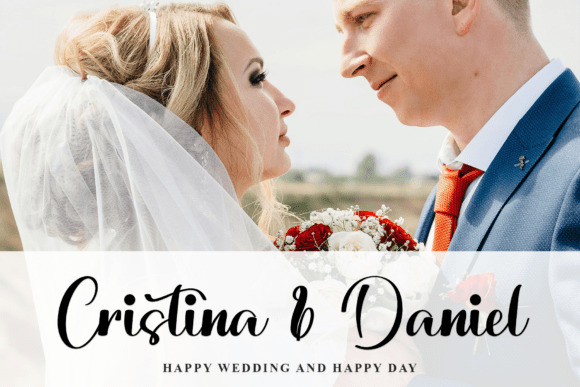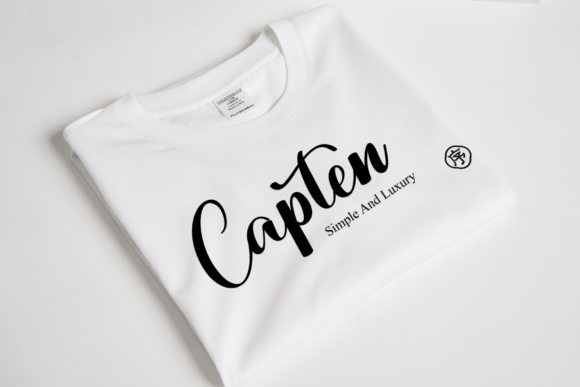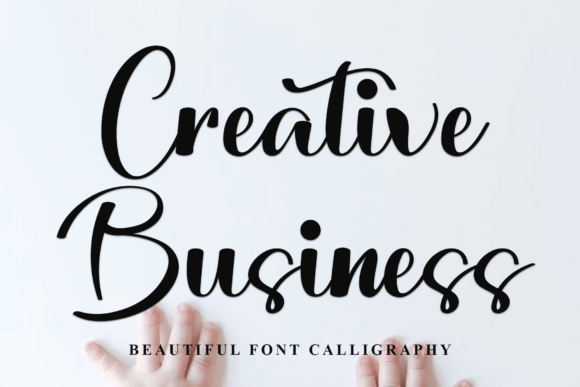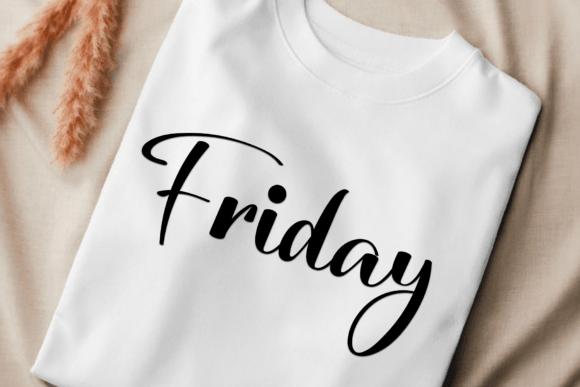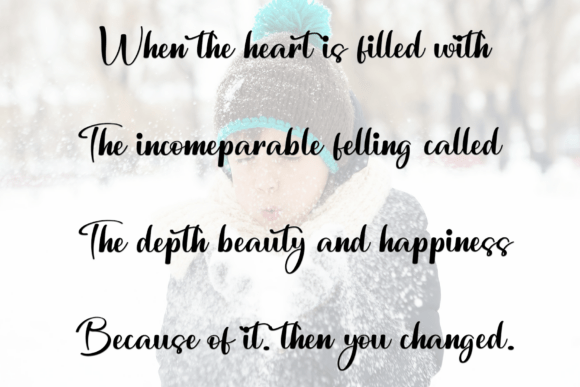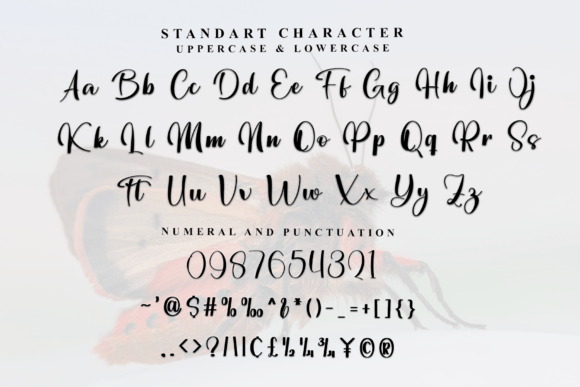
Get Ready to Celebrate with Birthday Antaresia Font
It’s that time of the year when you’re brainstorming ideas for your friend’s birthday party, and you can’t wait to create an eye-catching invitation that sets the tone for an unforgettable celebration. You fire up your design software, and suddenly, the perfect font pops into your mind – Birthday Antaresia Font. This charming font is specifically designed to capture the essence of warmth and friendliness, making it perfect for personal projects, social media graphics, and, of course, birthday invitations.
The Birthday Antaresia Font’s hand-drawn aesthetic adds a unique touch to any design, making it a valuable addition to your creative toolkit. Its round, playful strokes create a relaxed and approachable feel, ensuring that your designs exude a sense of joy and celebration. With its standard PUA Encoded glyphs, this font is easily accessible in various application engines, making it a convenient choice for designers of all levels.
Birthday Antaresia Font Key Features
- Font Family: Birthday Antaresia
- Unique Characteristics: Hand-drawn design, cursive script style, perfect for birthday invitations, greeting cards, and other celebratory materials
Birthday Antaresia Font Review
I recently had the chance to work with the Birthday Antaresia Font, and I must say it’s a unique addition to any project. Here are my honest thoughts on what works well and what doesn’t.
- The font’s elegant and whimsical feel makes it perfect for designing birthday invitations, party decorations, or any celebration-related materials.
- The variety of font styles, from cursive to script, allows for flexibility in choosing the right aesthetic for different projects.
- The font is well-suited for digital use, including web design, social media graphics, and presentations.
- The font may be too ornate for projects requiring a more minimalist approach, as its intricate details can be overwhelming.
Overall, the Birthday Antaresia Font is a great choice for projects that require a touch of elegance and whimsy. While it may have some limitations, its versatility and aesthetic appeal make it a solid addition to any designer’s toolkit.
Use the Birthday Antaresia font to add a touch of elegance and sophistication to your designs. Experiment with different font sizes and styles to create visual interest.
- Birthday invitations and party decorations
- Wedding invitations and wedding stationery
- Special occasion cards and gift tags